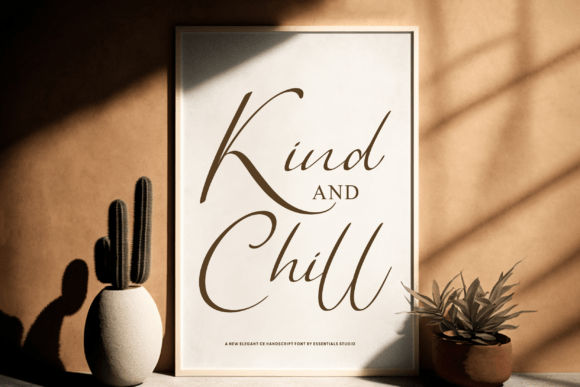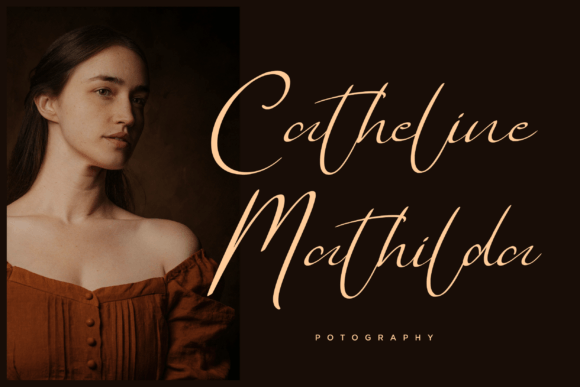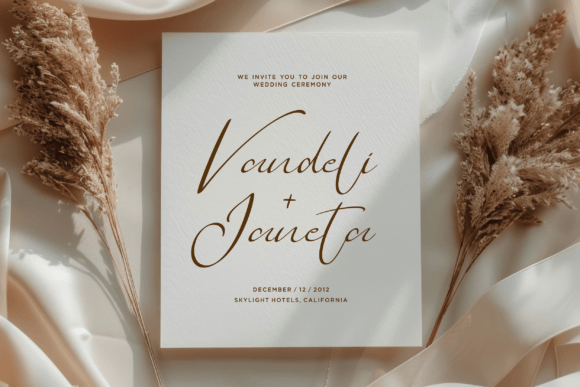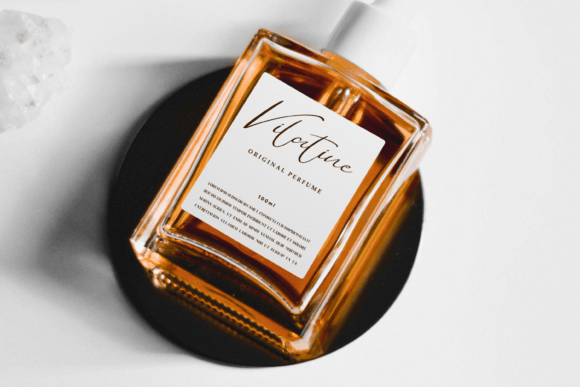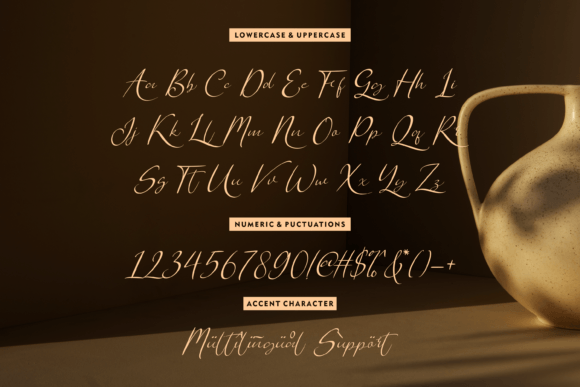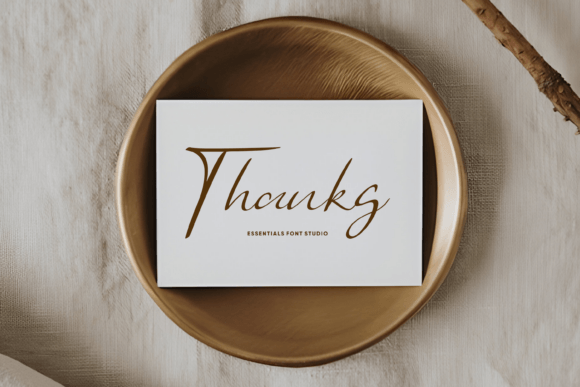
Introduction to Daylight Welington Font
Introducing Daylight Welington, a creation of Essentials Studio that effortlessly intertwines elegance and functionality.
This gracefully scripted font exudes an air of infinity that is simply spellbinding With a versatility that makes it ideal for a range of applications, from the delicate art of wedding personalizations to the tactical precision of commercial branding or crafting projects, Daylight Welington offers a seamless blend of style and utility.
Key Features of Daylight Welington Font